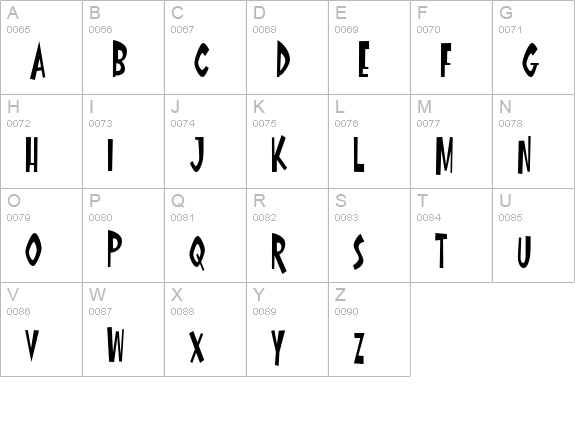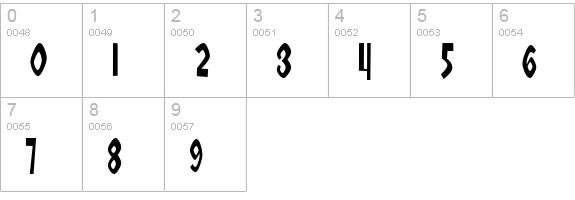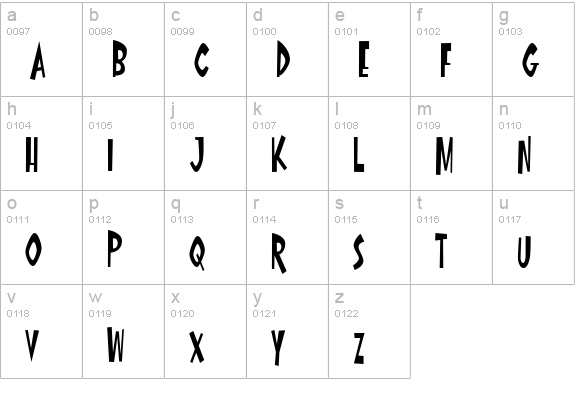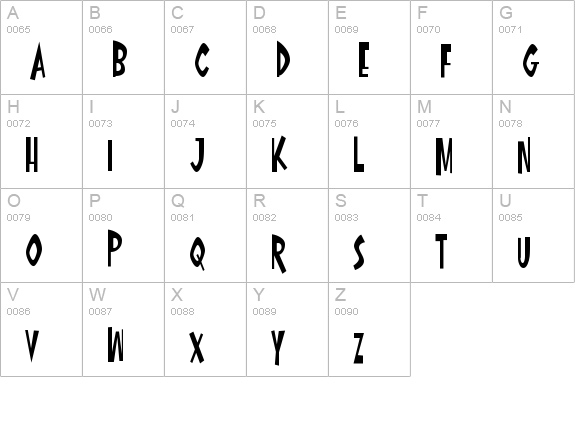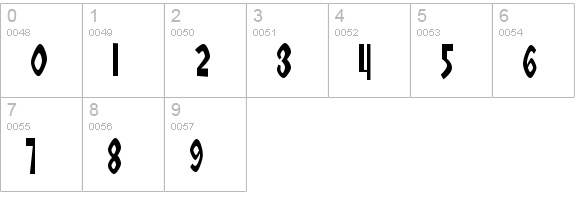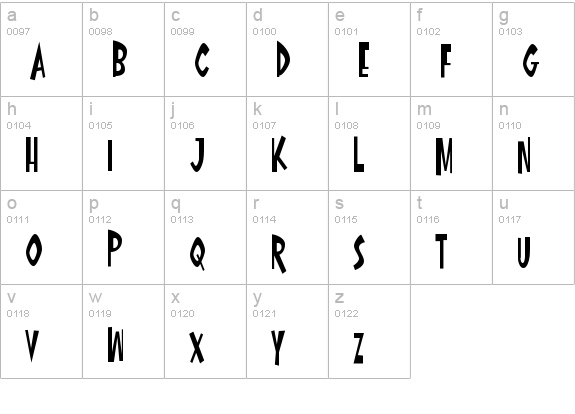
Oyster Bar BTN Cond is a distinctive, condensed-width variant in the Oyster typeface family \xE2\x80\x94 well suited to design and typography projects.
Oyster Bar BTN Cond font is a sleek and modern typeface that exudes elegance and sophistication. With its condensed style, this font is perfect for creating sleek headlines, stylish logos, and eye-catching designs. Its clean lines and sharp angles make it stand out from the crowd, while still maintaining a sense of professionalism. The best part? Oyster Bar BTN Cond font is available for free download at FontsMarket.com. Whether you're a designer looking to add a touch of class to your projects or a business owner in need of a fresh new look for your branding, this font is sure to impress. Don't miss out on the opportunity to elevate your designs with this stunning typeface - download it for free today!